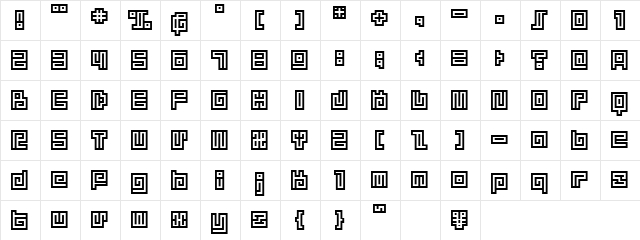
BM spiral A13
Design Context for BM spiral Typeface
BM spiral is a composed and adaptable typeface that performs quietly and consistently across a wide range of design contexts.